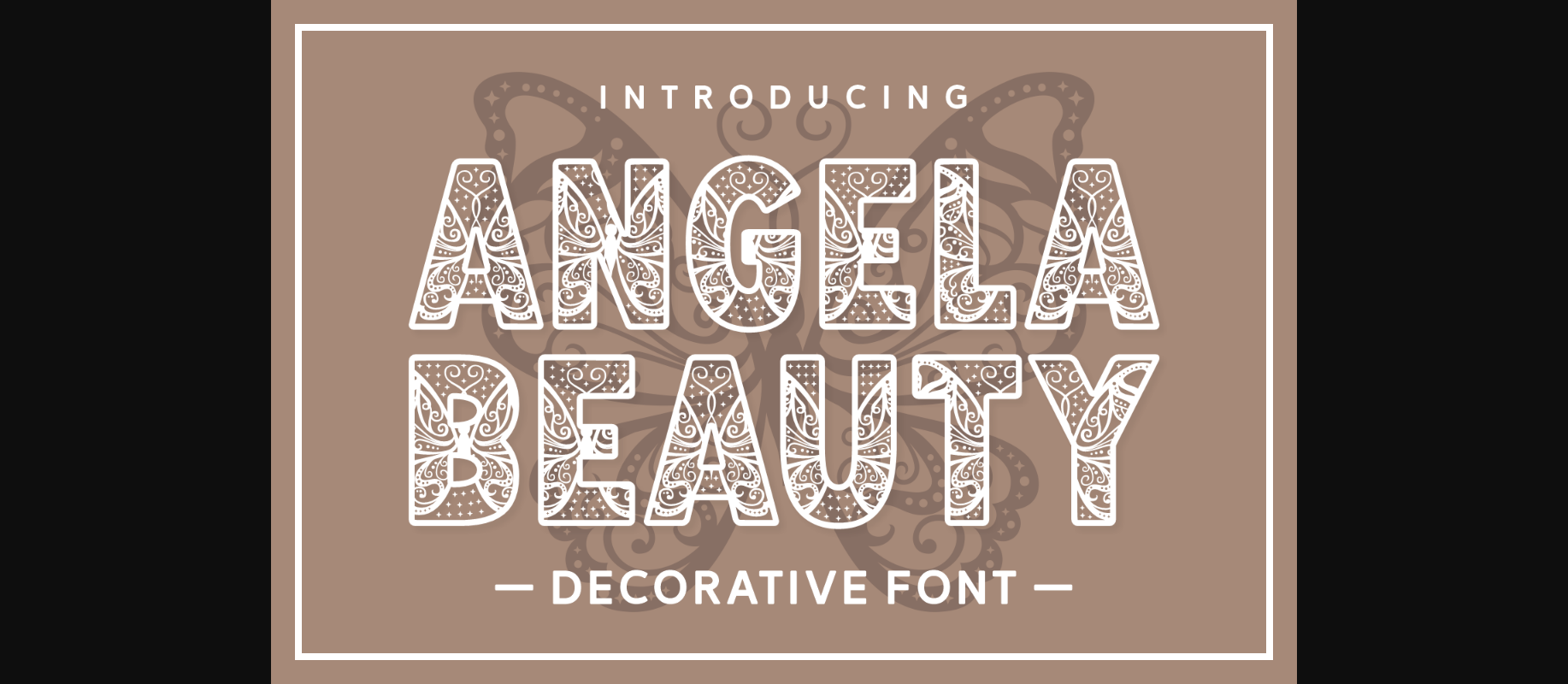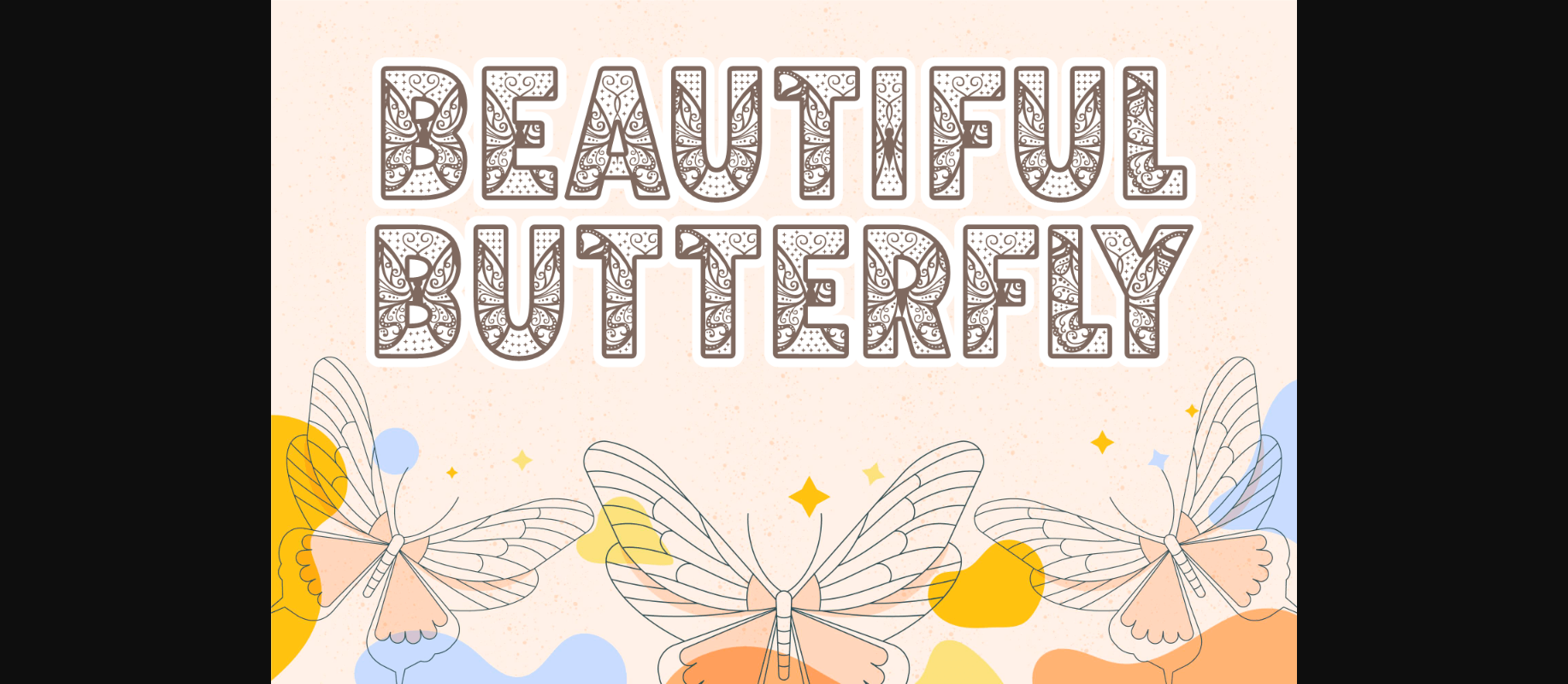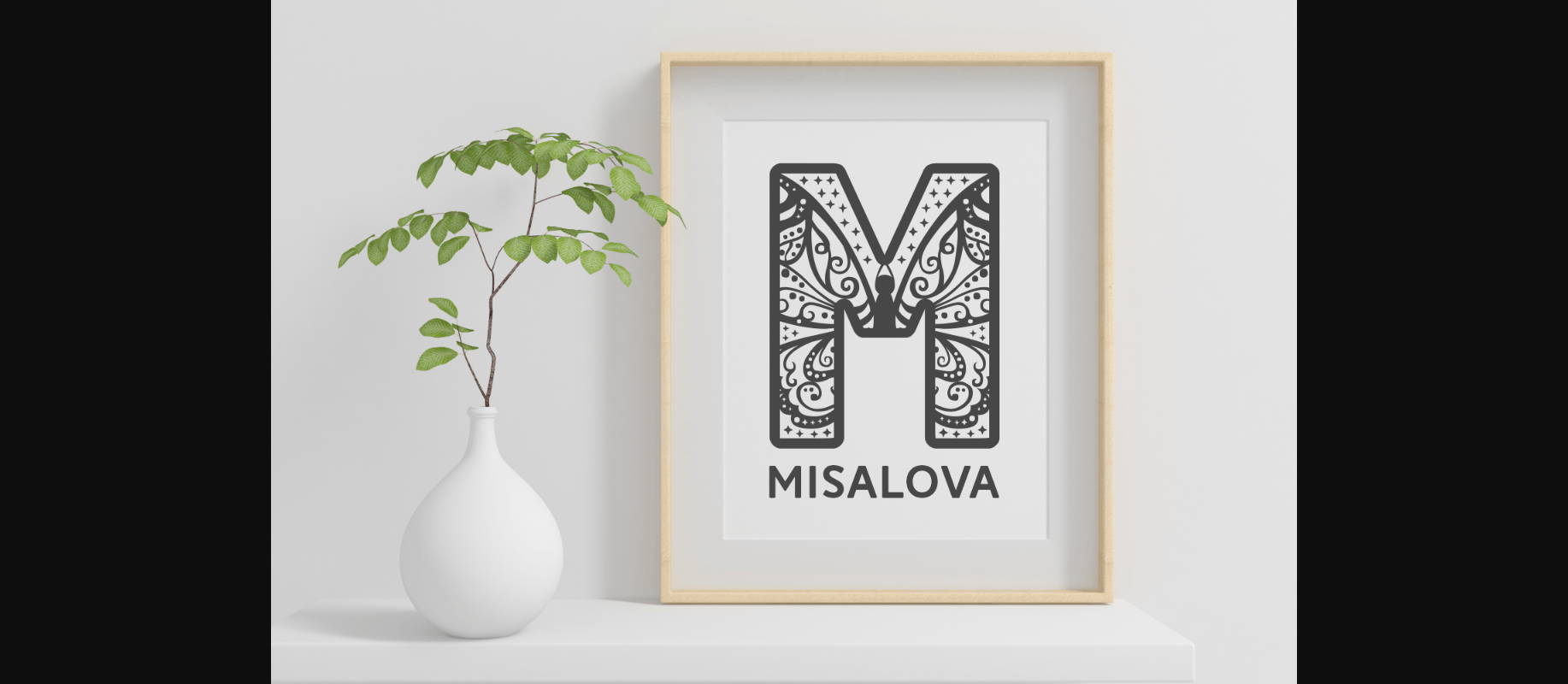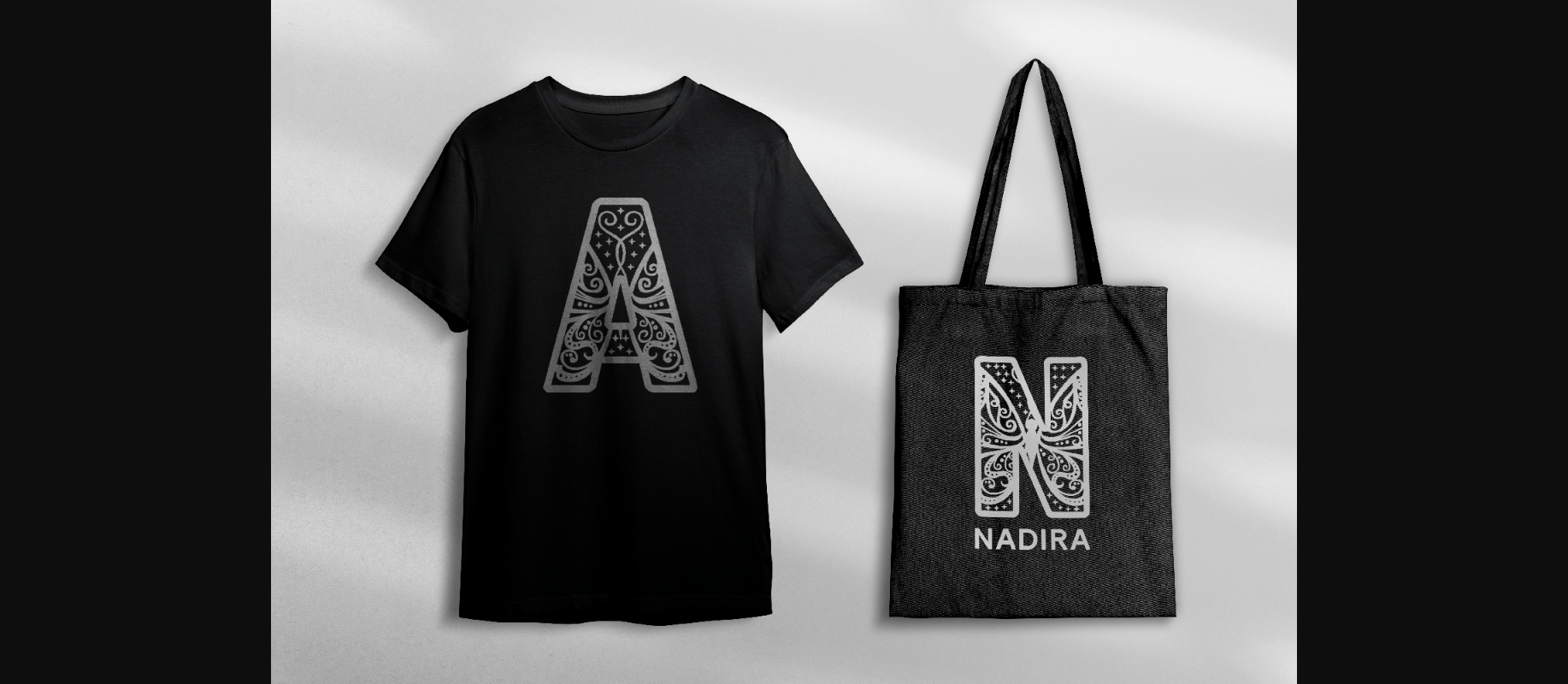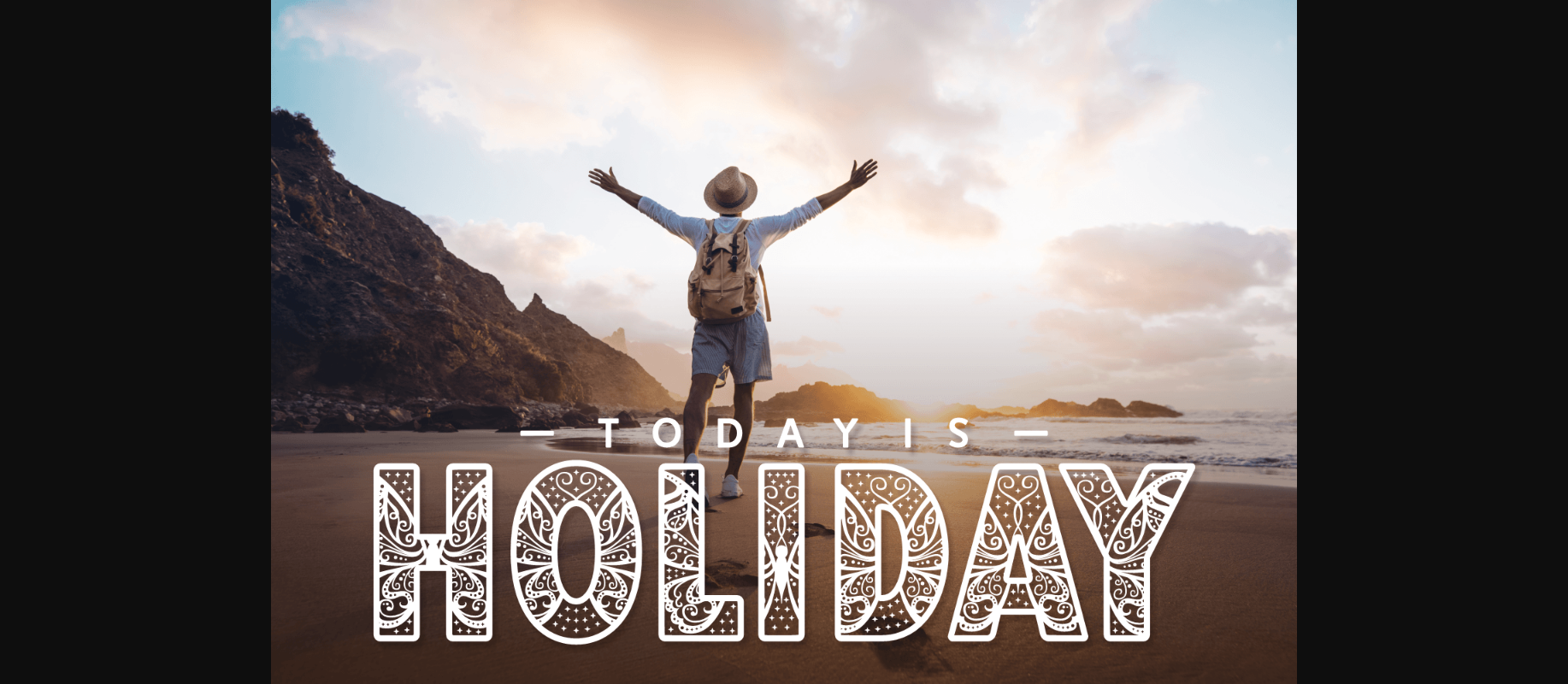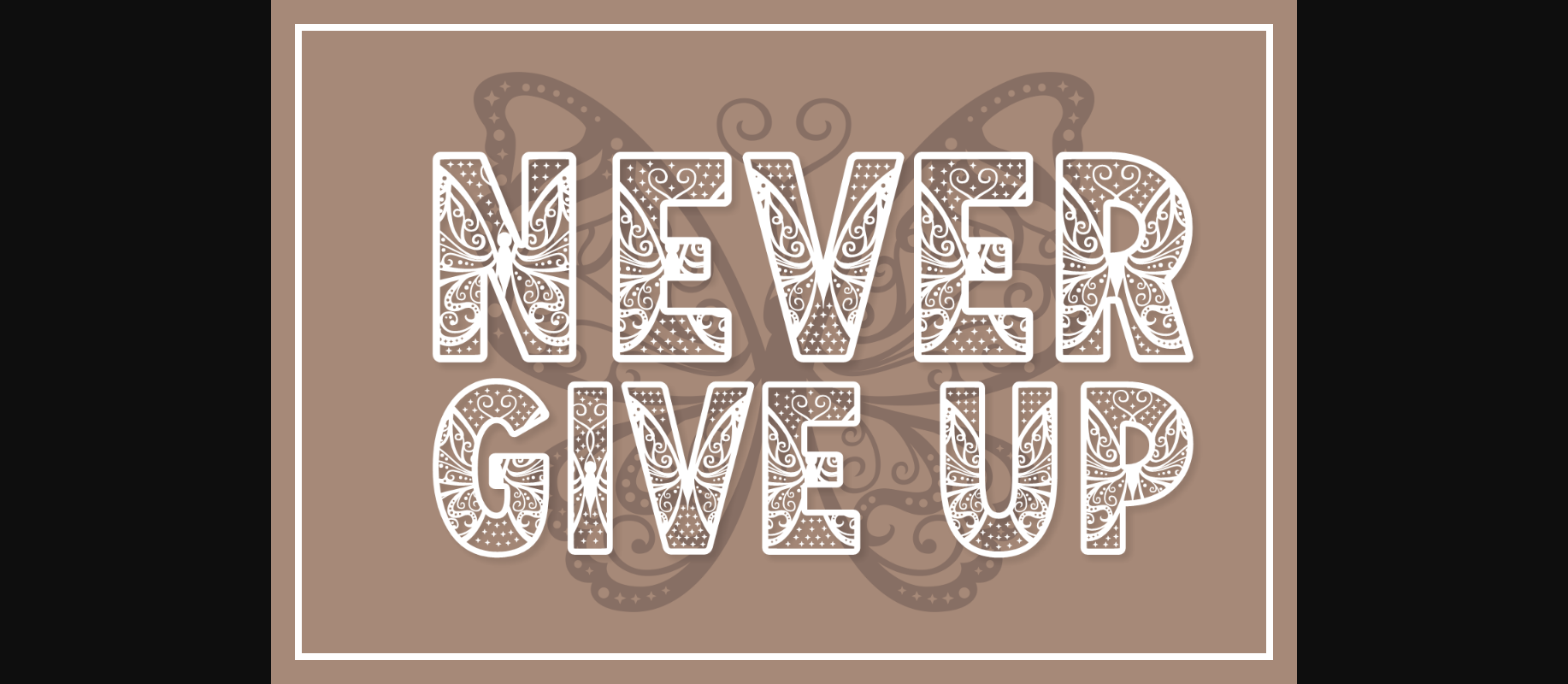
Angela Beauty Font
About Angela Beauty Font
Angela Beauty is a gorgeous decorative font with abstract butterfly elements. Use this lovely typeface to add a feminine, delicate touch to your typography designs!